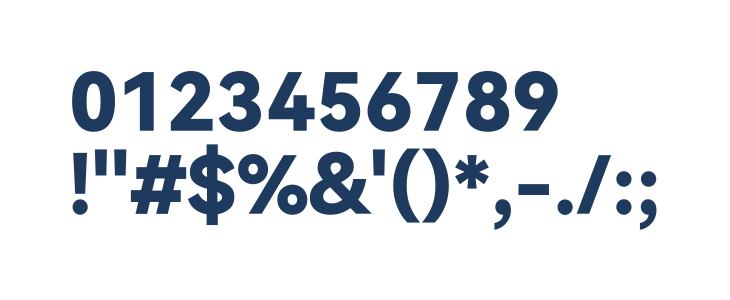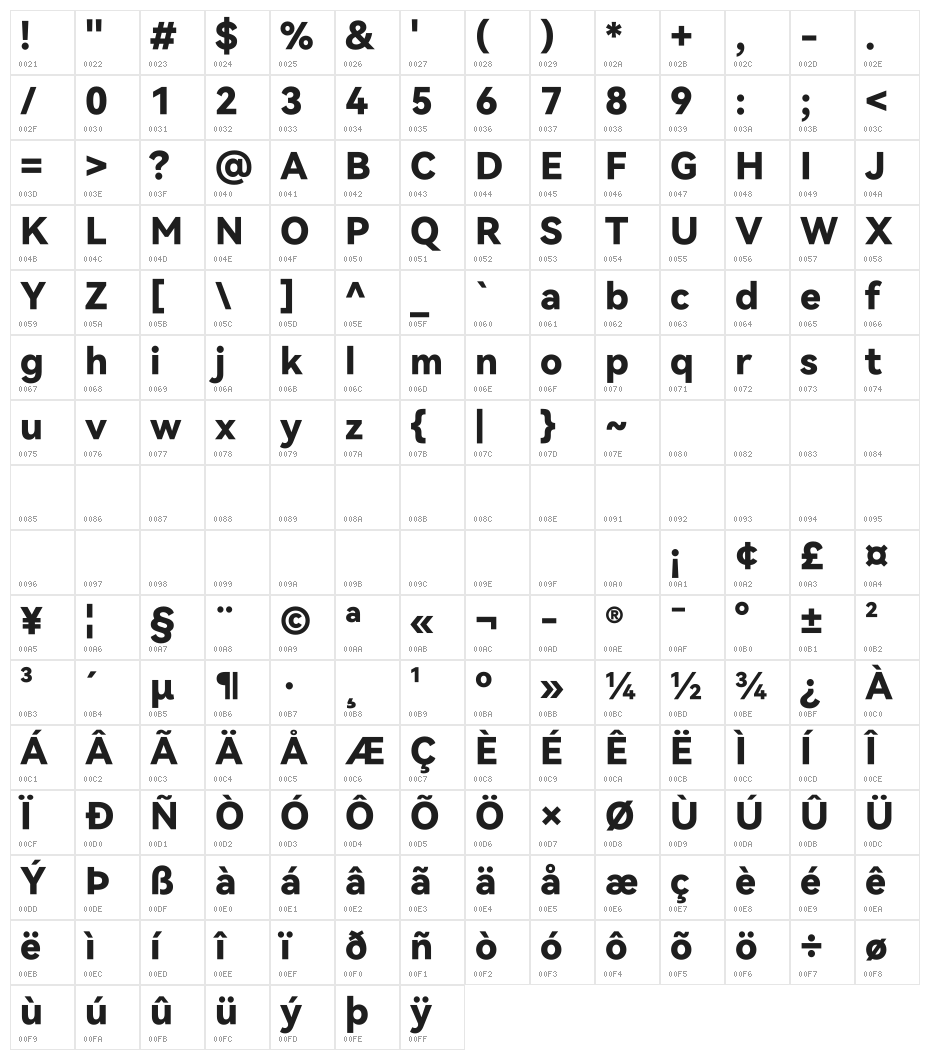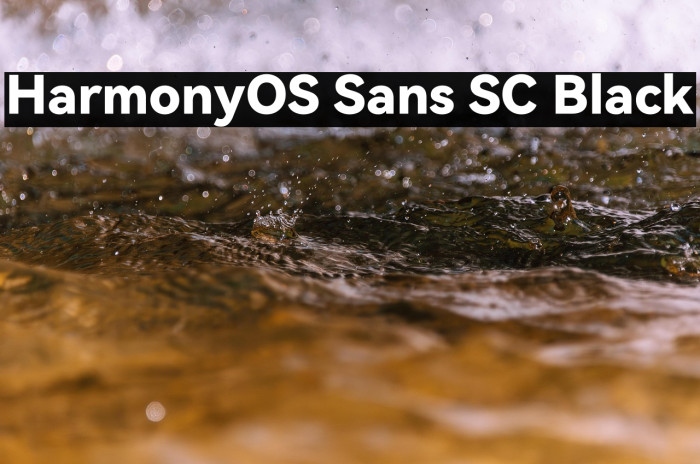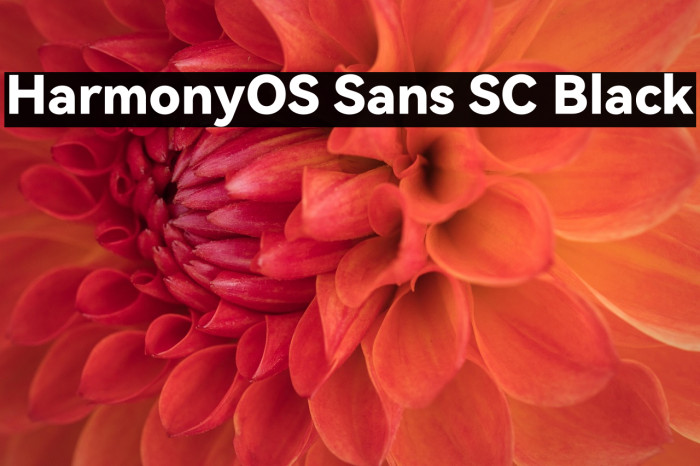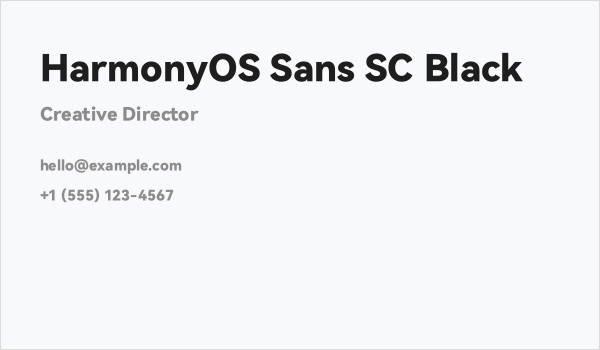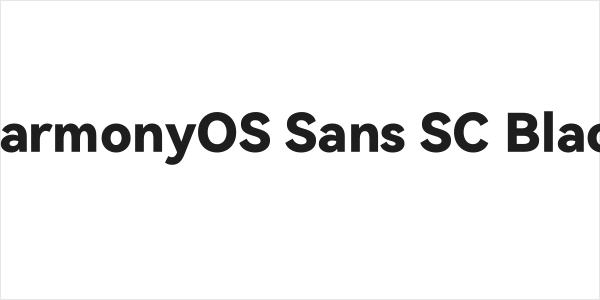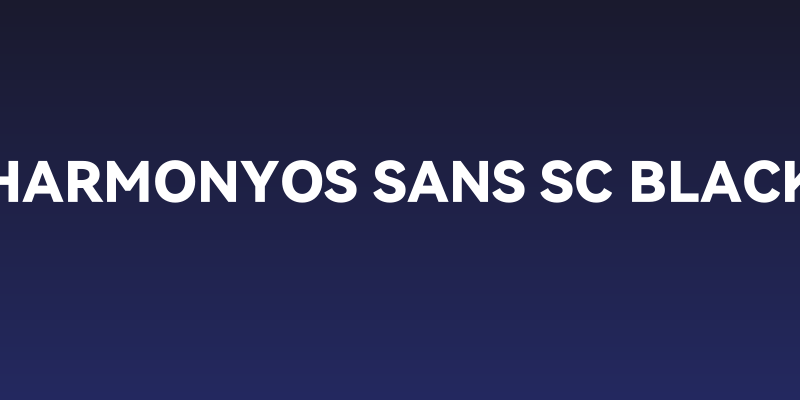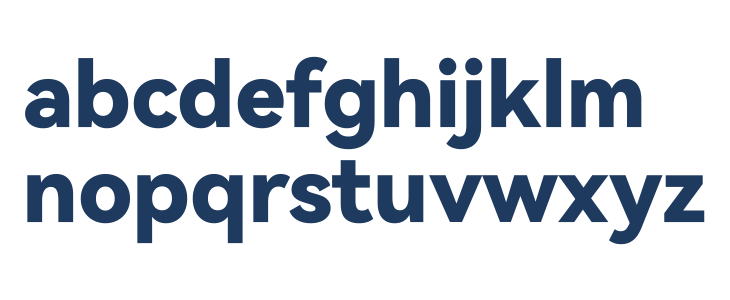
HarmonyOS Sans SC Black Font
HarmonyOS Sans SC Black Description
This font exhibits a bold and modern sans-serif style, characterized by clean lines and a strong presence. The uppercase and lowercase letters are well-proportioned, with a consistent stroke width that enhances readability. The numerals are clear and distinct, making them suitable for a variety of applications. Special characters are included, maintaining the font's cohesive design. Its simplicity and clarity make it versatile for both digital and print media.
| Use Case | Headlines, Logos, Digital interfaces |
| Proposed Projects | Ideal for branding, advertising, headlines, and digital interfaces where clarity and impact are essential. |